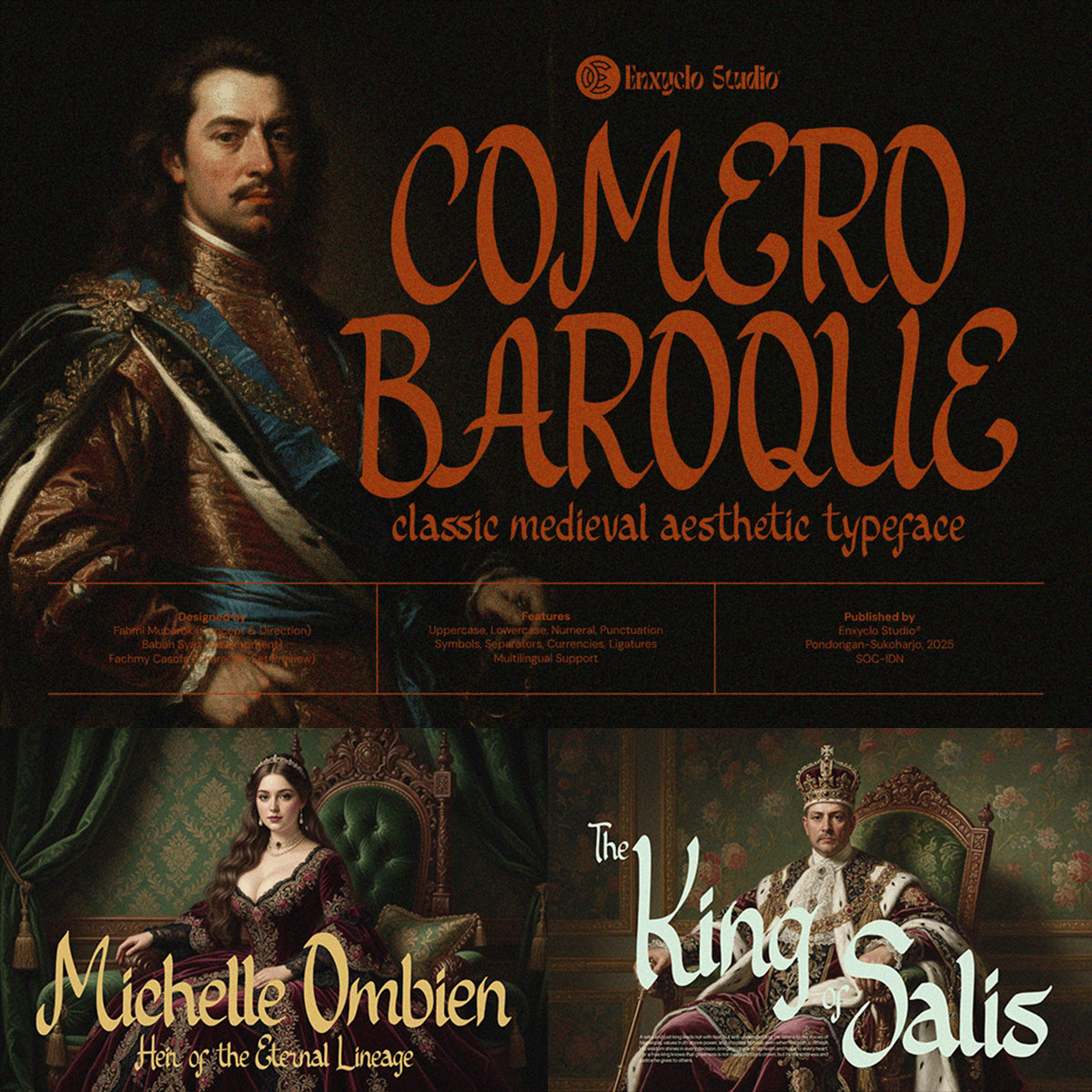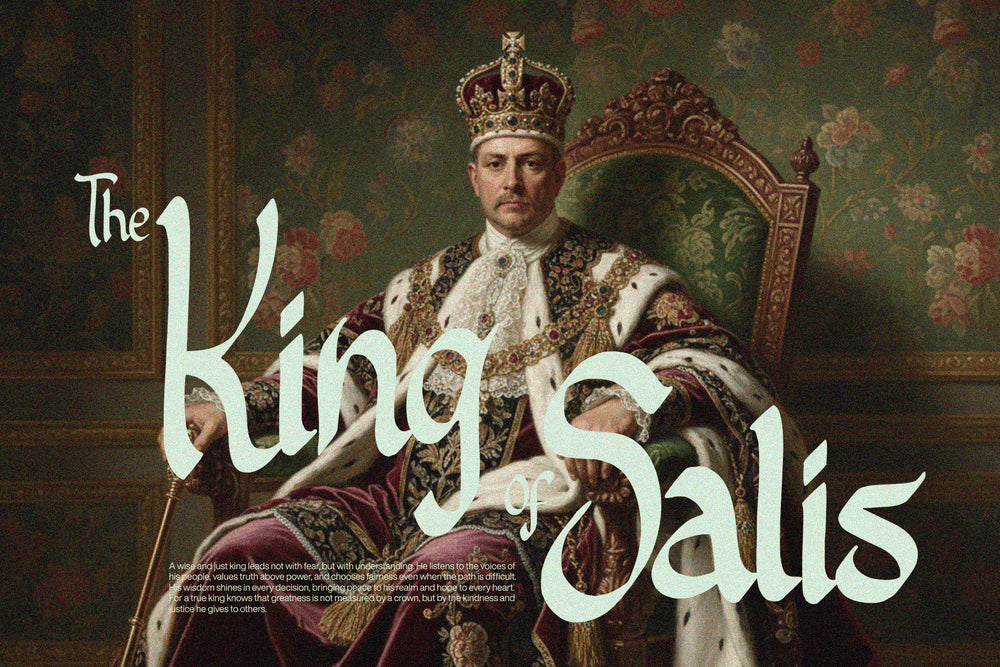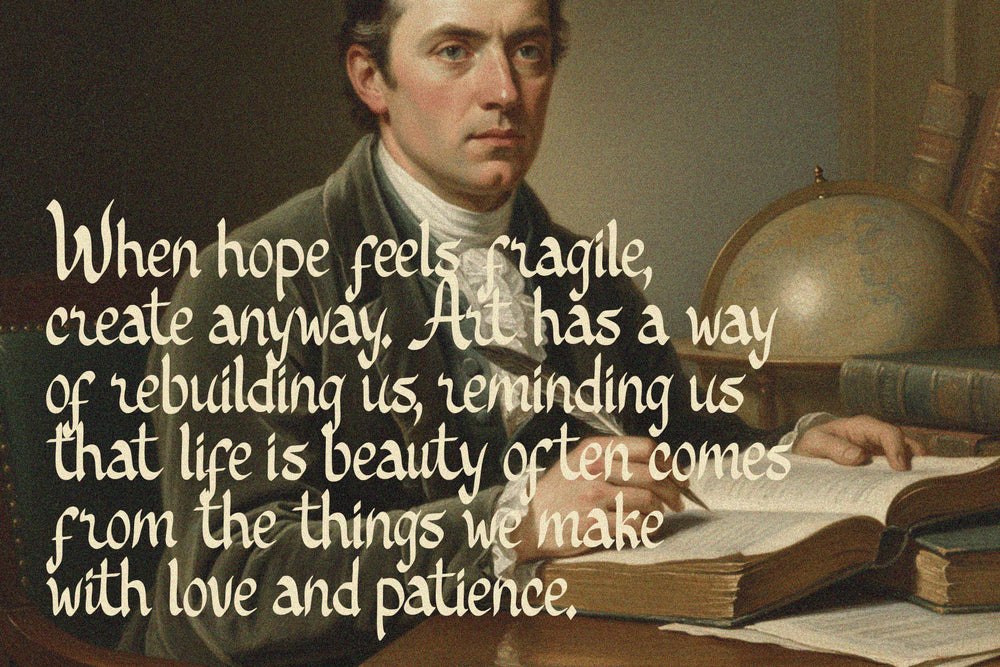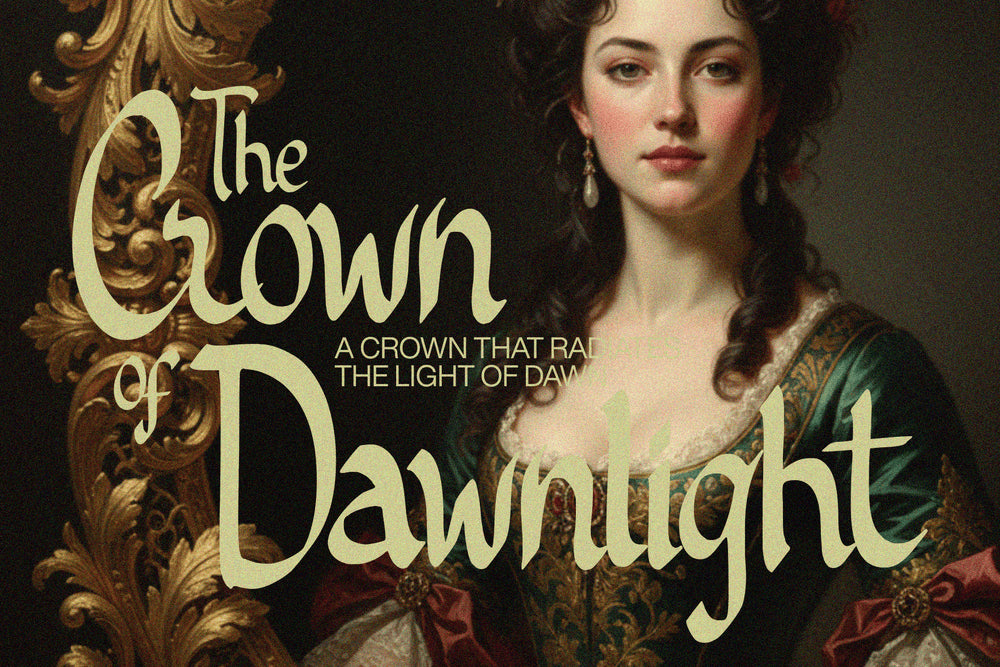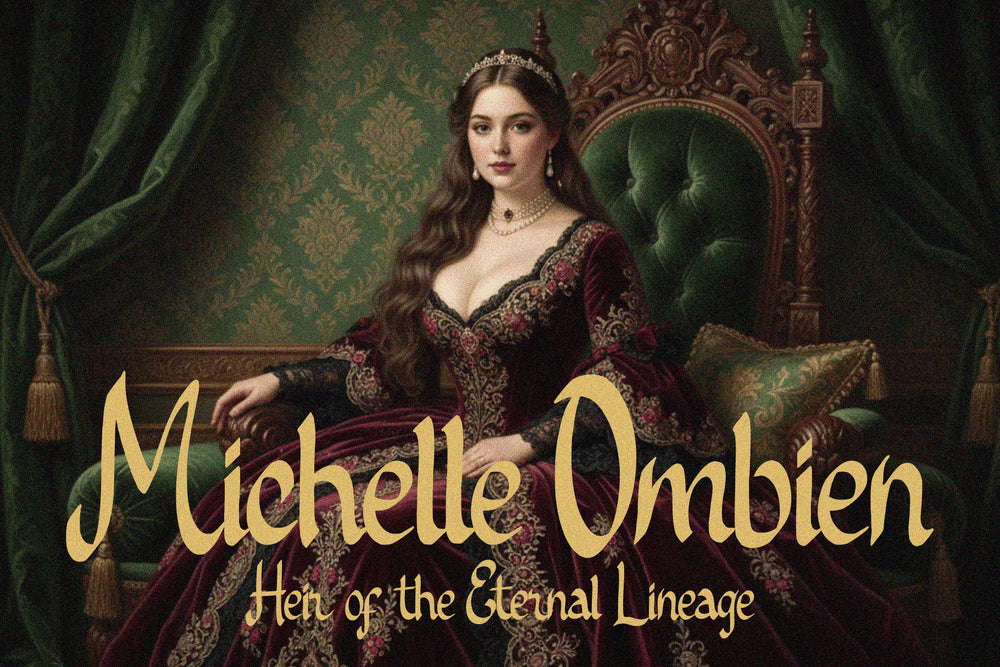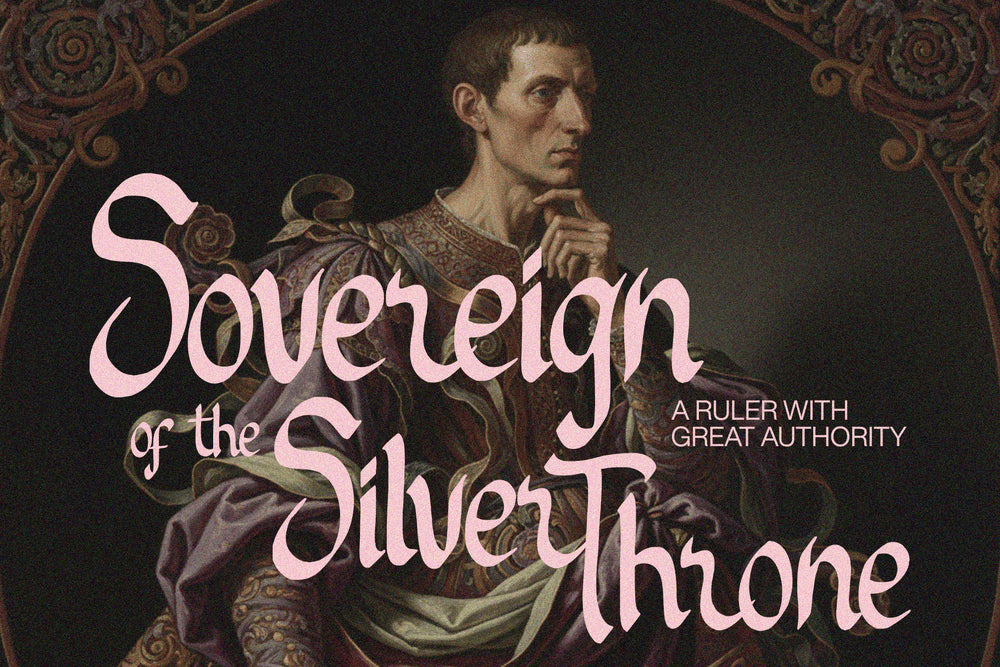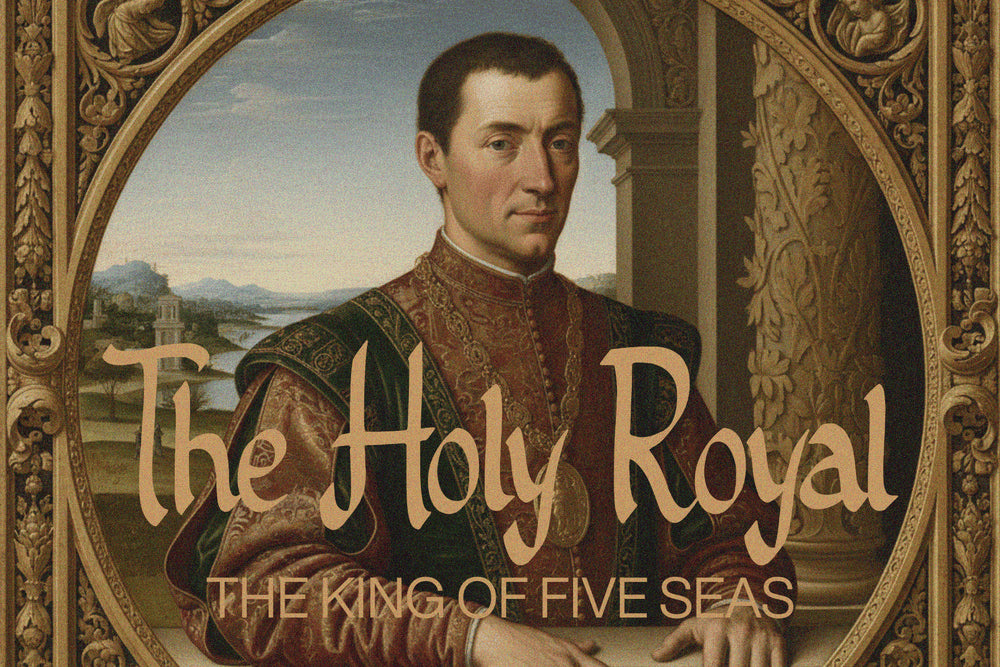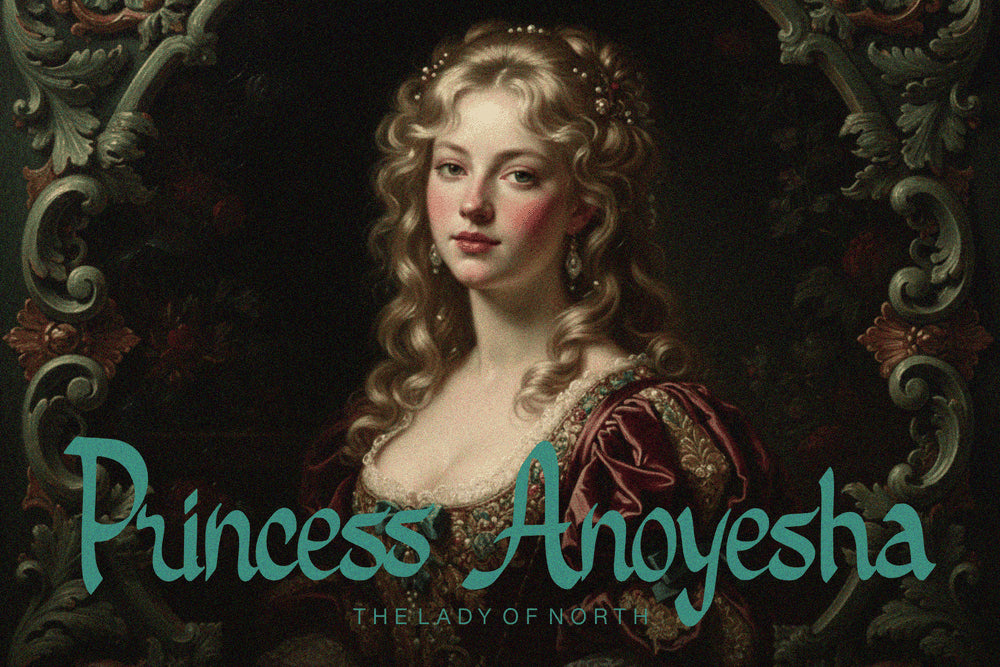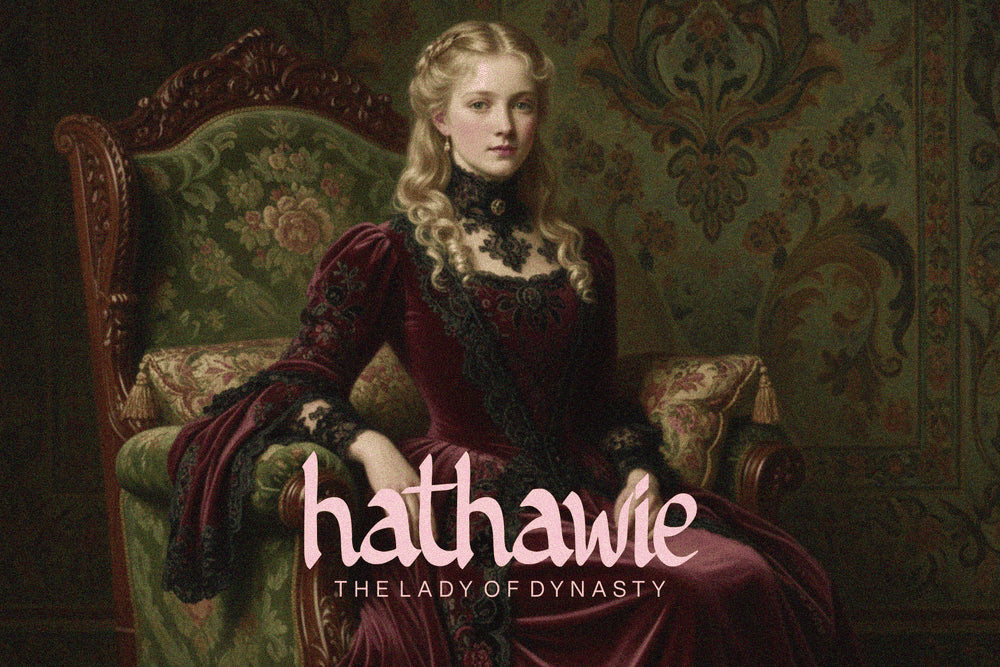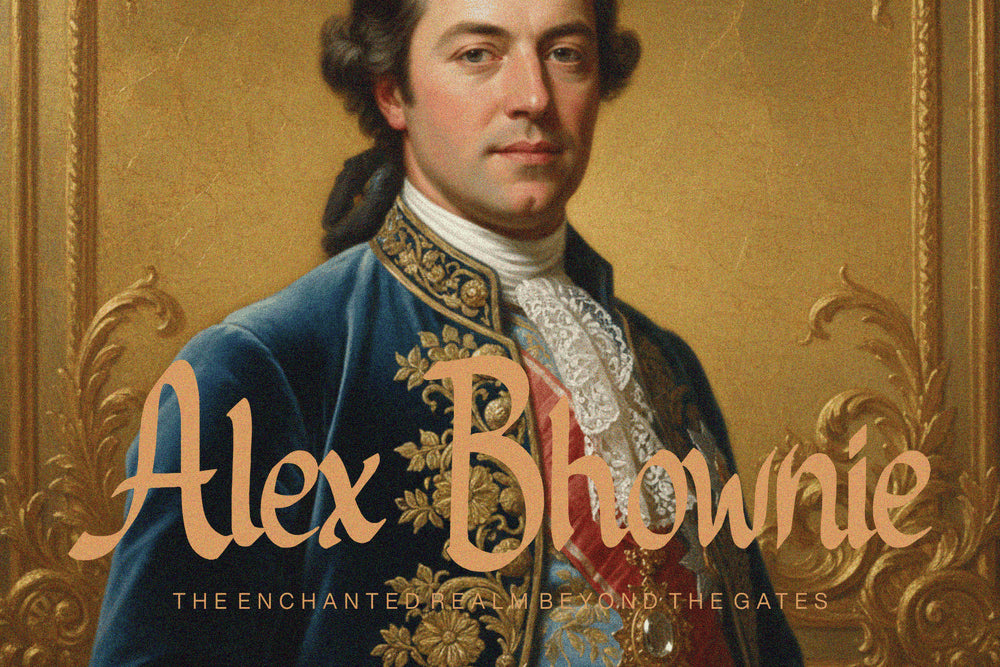
COMERO BAROQUE — Classic Medieval Font
COMERO BAROQUE is a classic, medieval-inspired handwritten font featuring elegant strokes and ornamental characters that reflect baroque and Victorian aesthetics. It includes uppercase and lowercase letters, punctuation marks, a symbol set, currency symbols, ligatures, and multilingual support, available in OTF, TTF, and WOFF formats.